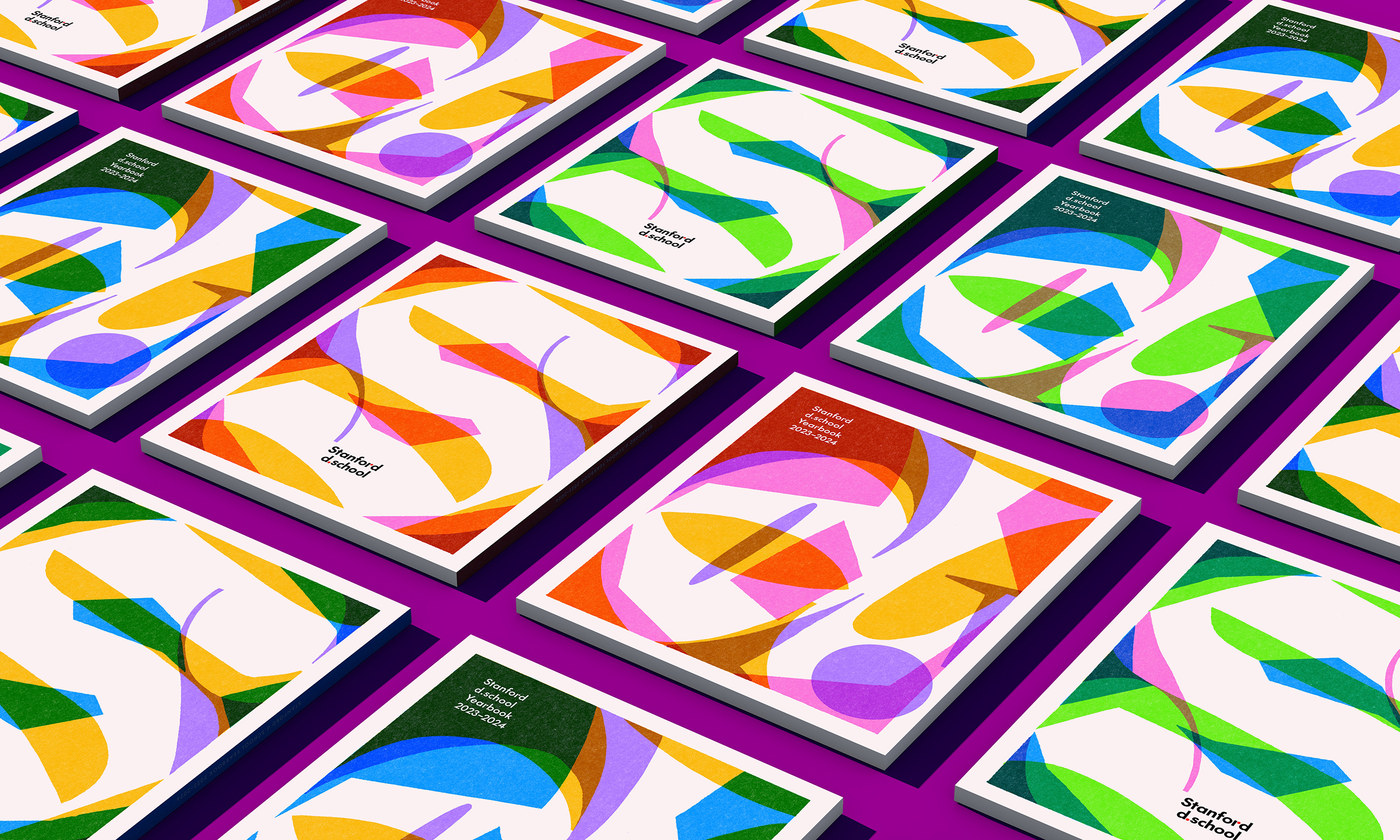
Stanford d.school Yearbook ’24
The Stanford d.school Yearbook is an annual publication that celebrates the school year’s activities and events. Overlapping joyful colors represent the intersections of educators, students, and community coming together to share ideas. Featuring bold typography, custom lettering and a vibrant color palette, the publication captures the school’s innovative methods. This yearbook is divided into the following three sections: ‘Teach & Learn: Shaping Curriculum and Community in a Changing World’, ‘Impact & Access: Sharing Design Ideas and Tools’, and ‘Explore & Imagine: Building the Future Foundations of Design’. Each of the book’s three sections is color coded for easy navigation. 168 pages, 8.5 × 10, 4-color, perfect bound.